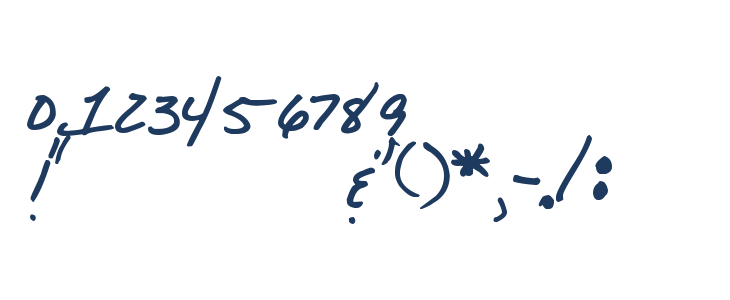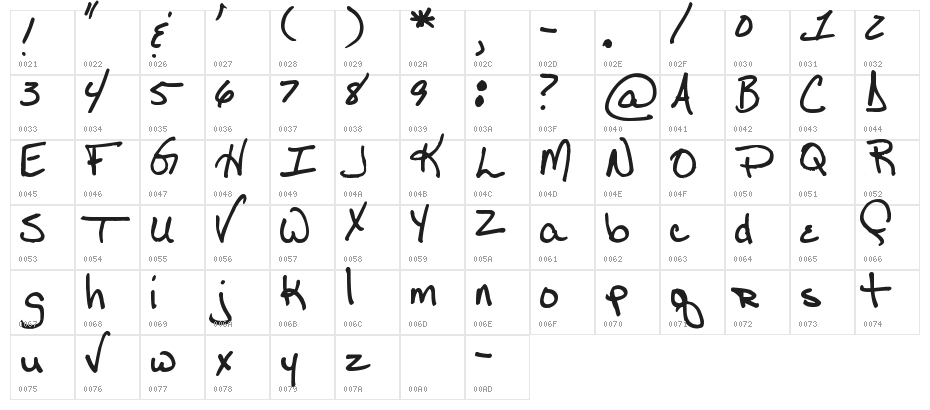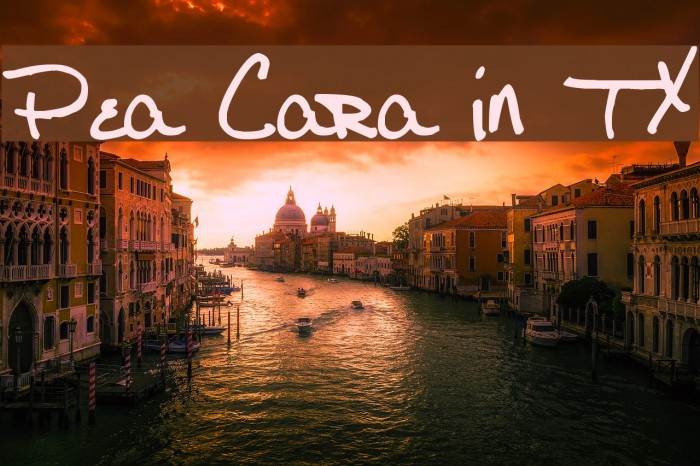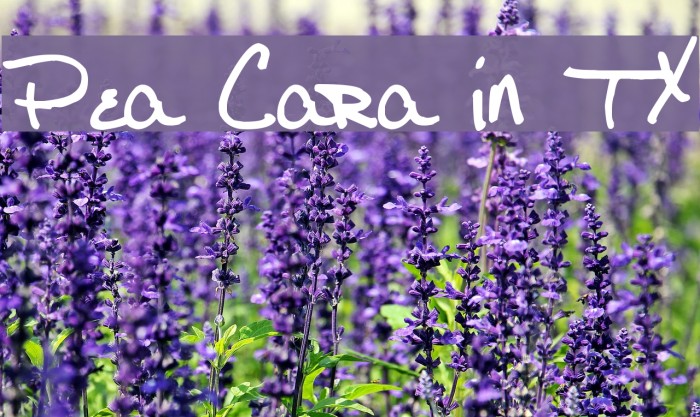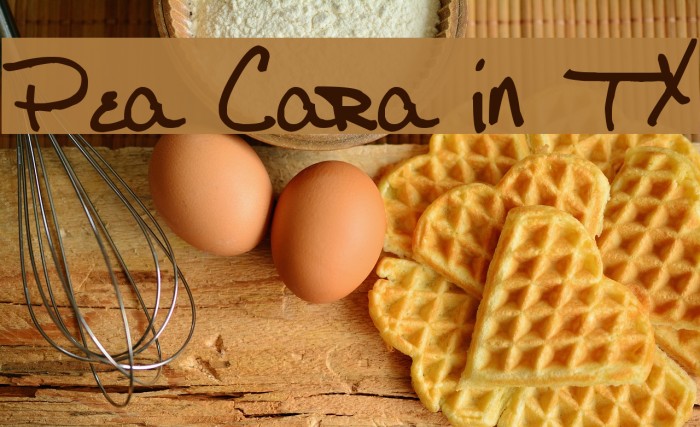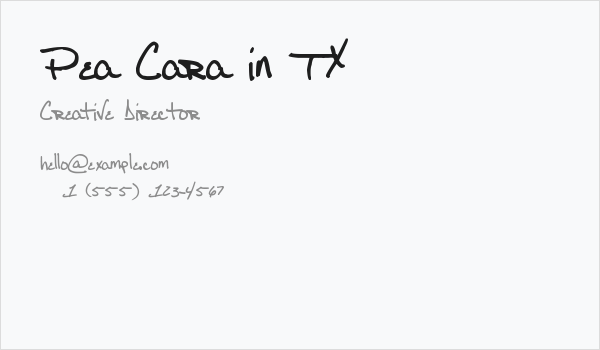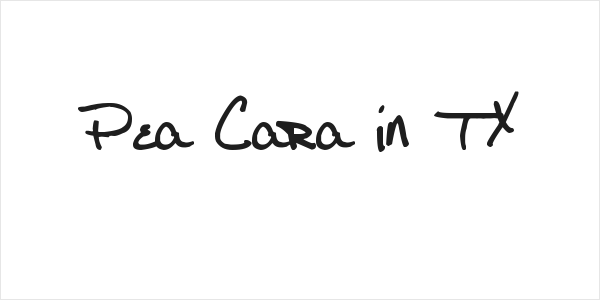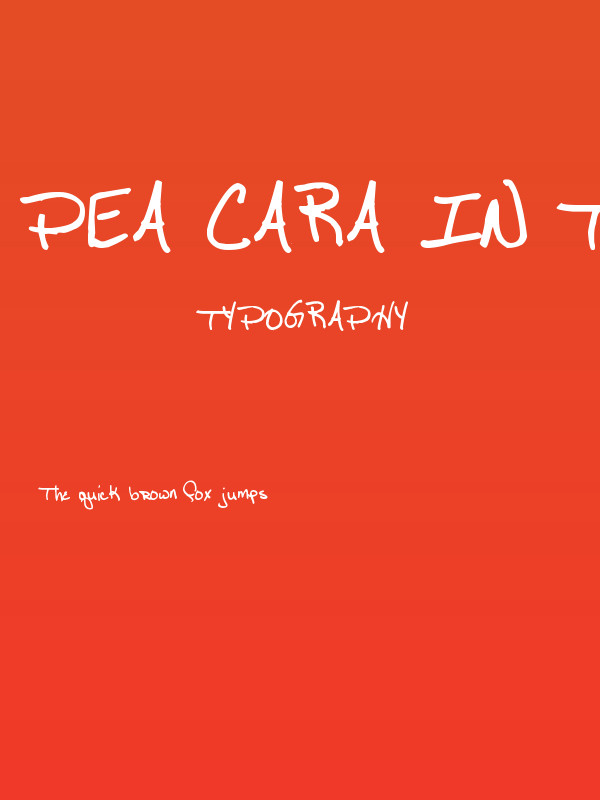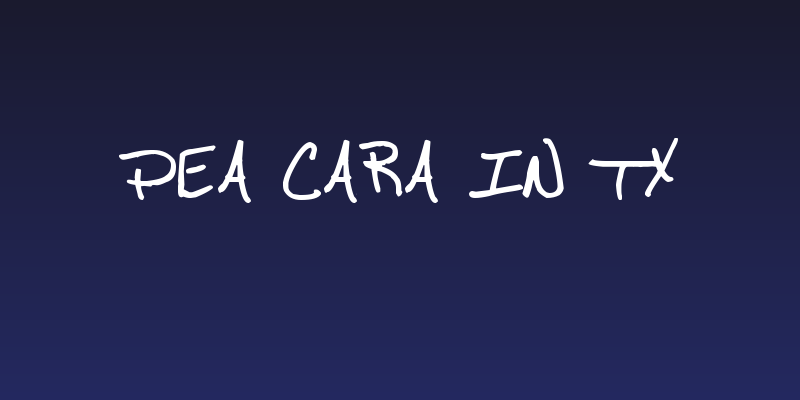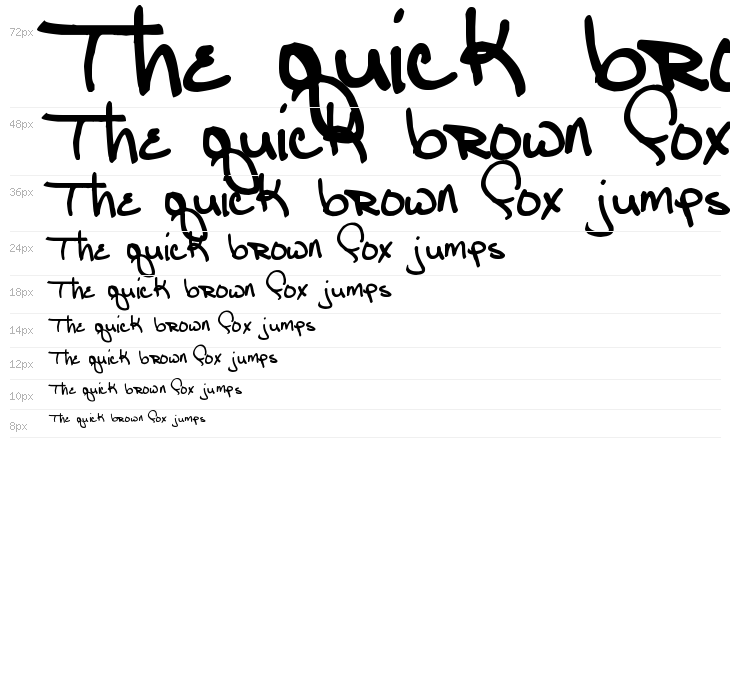
This playful and energetic handwritten font exudes a casual and friendly vibe. The letters are characterized by their irregular strokes and varying heights, giving it a spontaneous and lively appearance. The uppercase letters maintain a consistent flow, while the lowercase letters exhibit a charming quirkiness with loops and curves. Numbers and special characters follow the same informal style, making the font versatile for creative projects. Its overall look is approachable and fun, perfect for adding a personal touch to any design.
Overall StyleCasual
Use CaseGreeting cards, Personal notes, Children's books
Proposed ProjectsIdeal for greeting cards, personal notes, children's book illustrations, and playful branding.